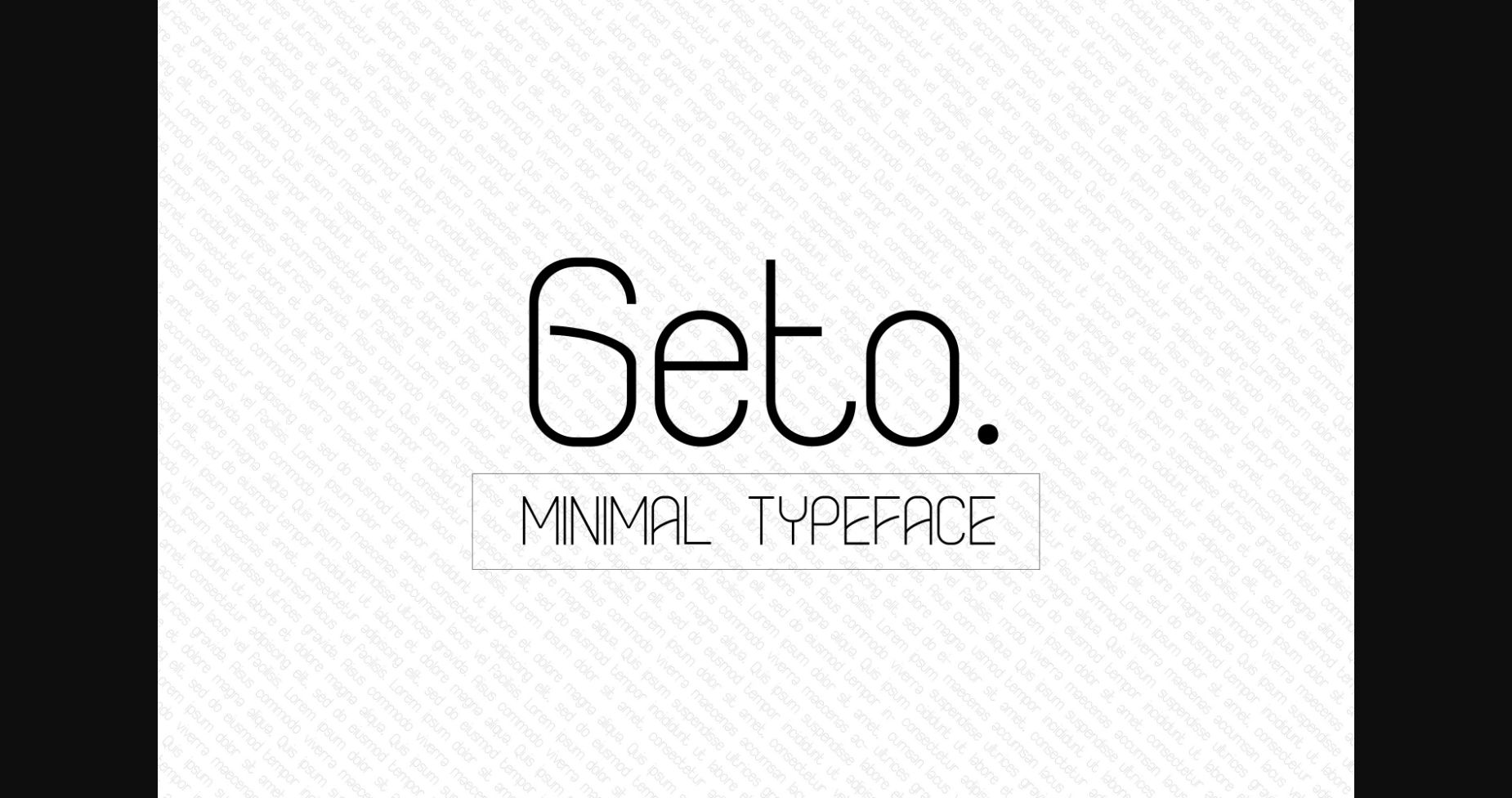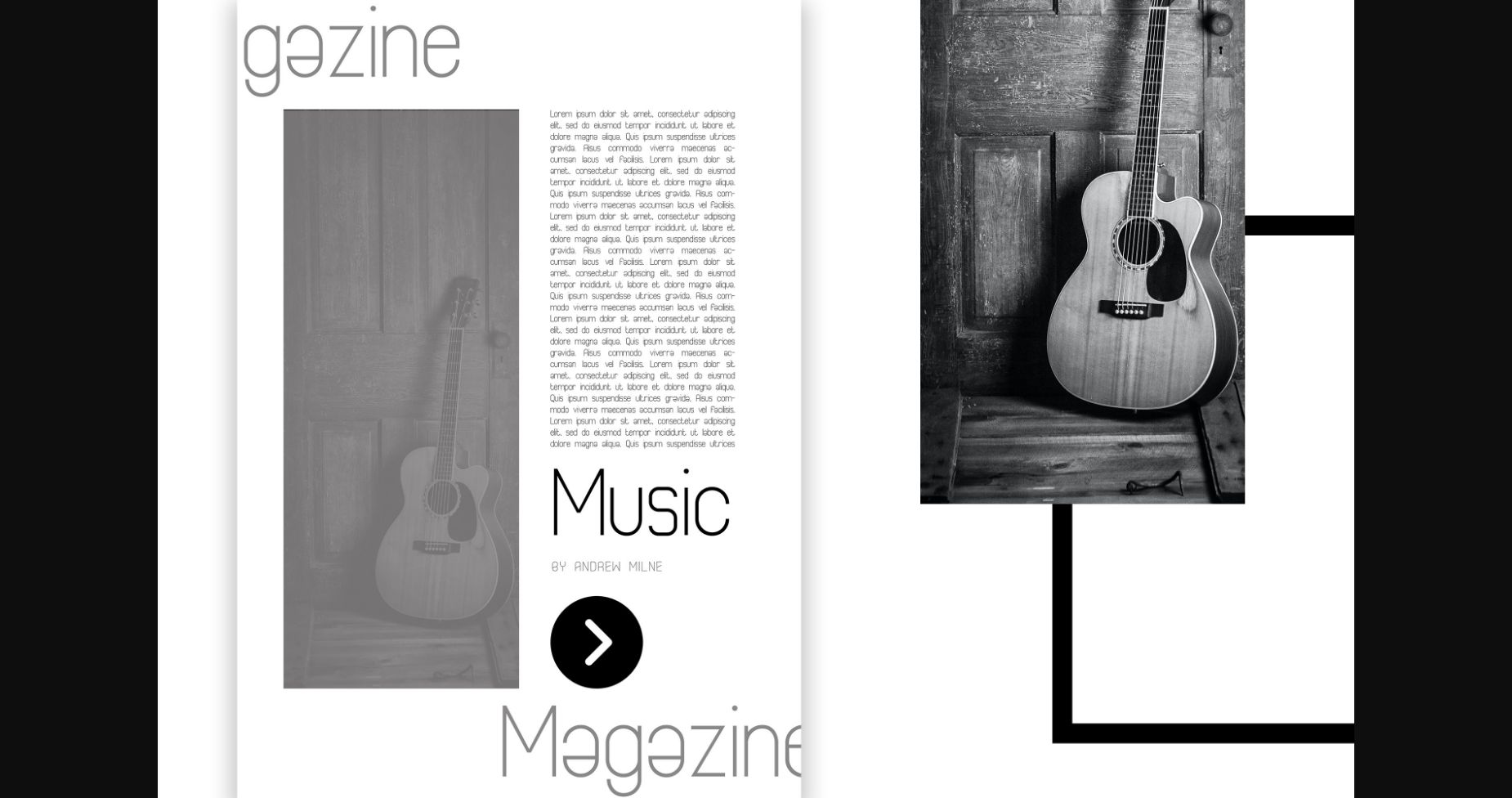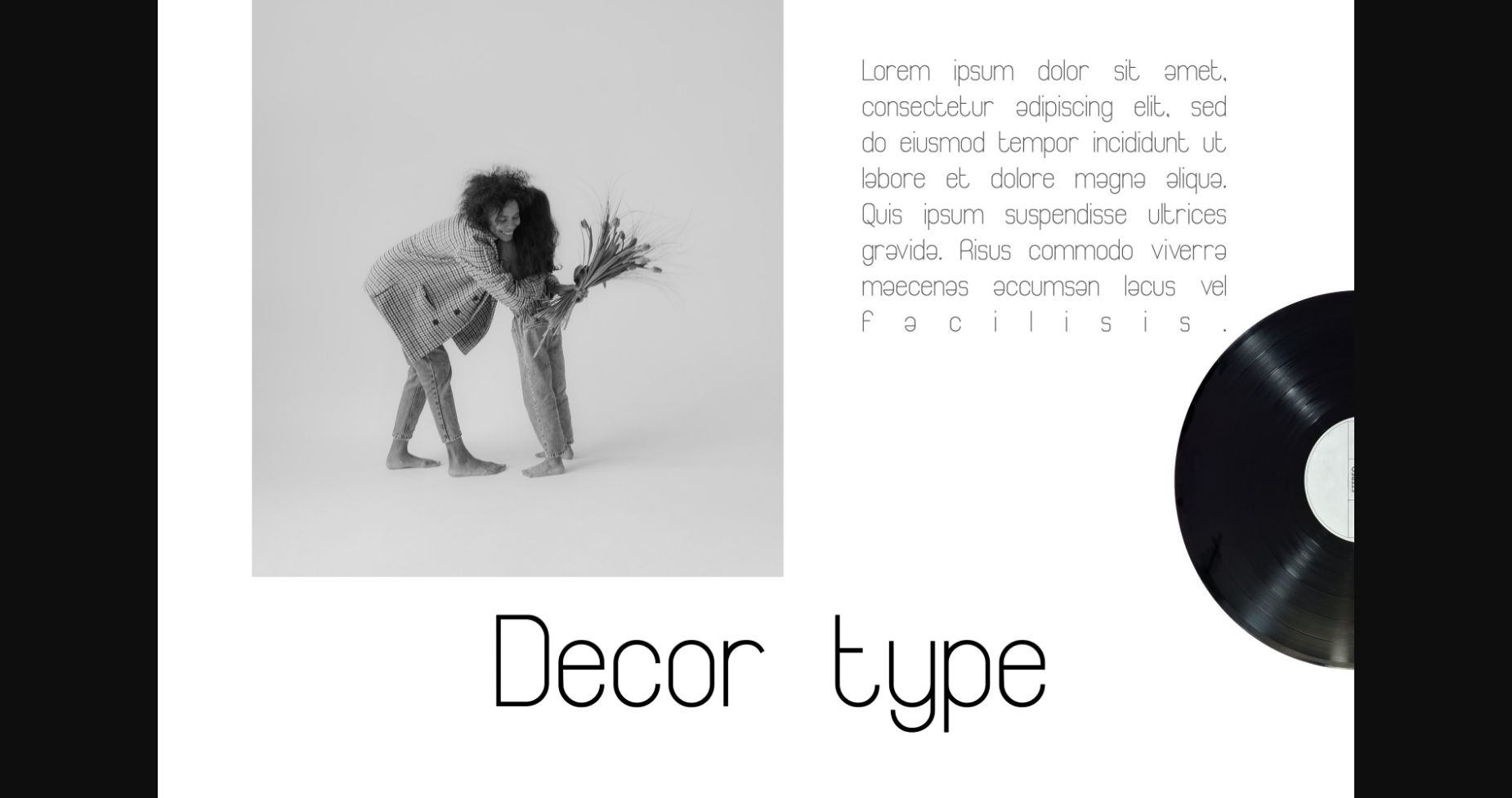
HomeSans Serif FontsGeto Font Sans Serif Fonts Geto Font FacebookXPinterestWhatsApp 1 of 5 ... Geto Font Poster 2... Geto Font Poster 3... Geto Font Poster 4... Geto Font Poster 5... About Geto Font Geto is a minimal and neat sans serif font. It can easily be matched to an incredibly large set of projects, so add it to your creative ideas and notice how it makes them stand out! DOWNLOAD NOW People also explored Wooslight Font Penuche Font Raisya Font Rafaela Belaria Font Rookie Coach Whiteboard Modern Feisty Aries Font Gardenia Font Guthers Font 543 0 TagsGetoGeto Font Previous articleKiddo Sans FontNext articleGalore Font LEAVE A REPLY Cancel reply Comment: Please enter your comment! Name:* Please enter your name here Email:* You have entered an incorrect email address! Please enter your email address here Website: Save my name, email, and website in this browser for the next time I comment. Personal Use Free Mike Ferrari 16017 Personal Use Free Read more about this font Manbow Personal Use Free Read more about this font Mahisya Personal Use Free Read more about this font Castina Personal Use Free Read more about this font BLOG Free Fonts Risk: Why Free Fonts Can Be Dangerous for Designers Free Fonts Risk: Why Free Fonts Can Be Dangerous for Designers Using free fonts is a common practice in web and graphic design. However, the... Exploring Font Trends Free vs Paid Fonts: Why Investing in Premium Fonts Is Worth It Where to Buy American Fonts Online in 2024